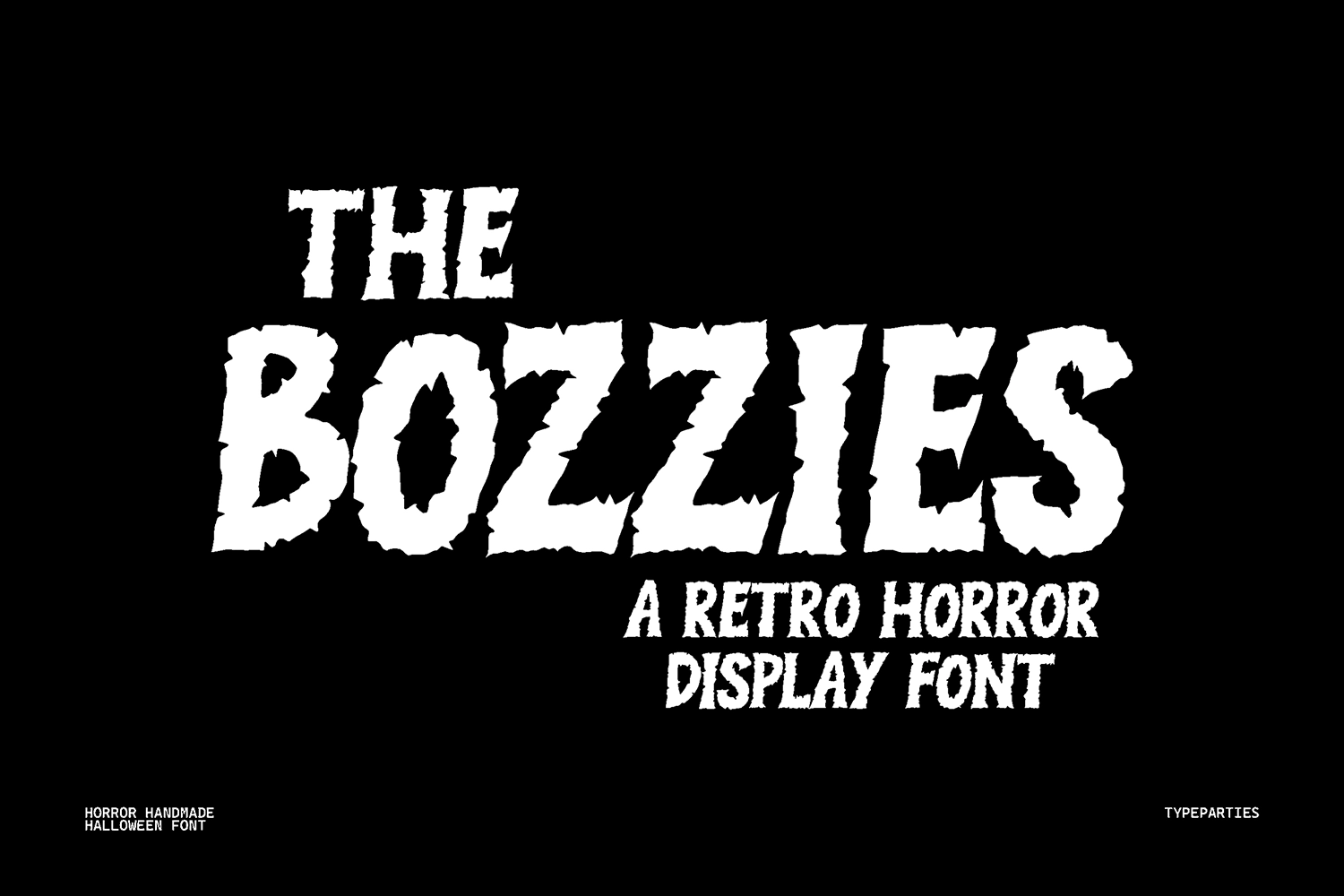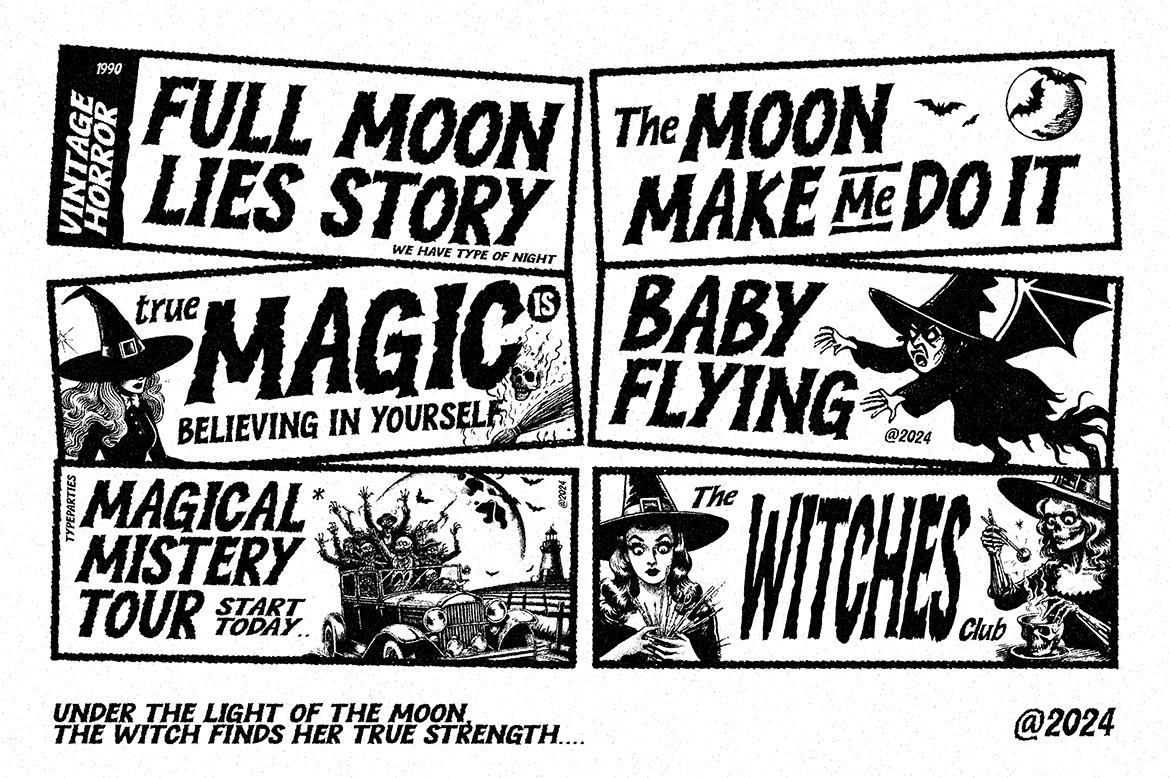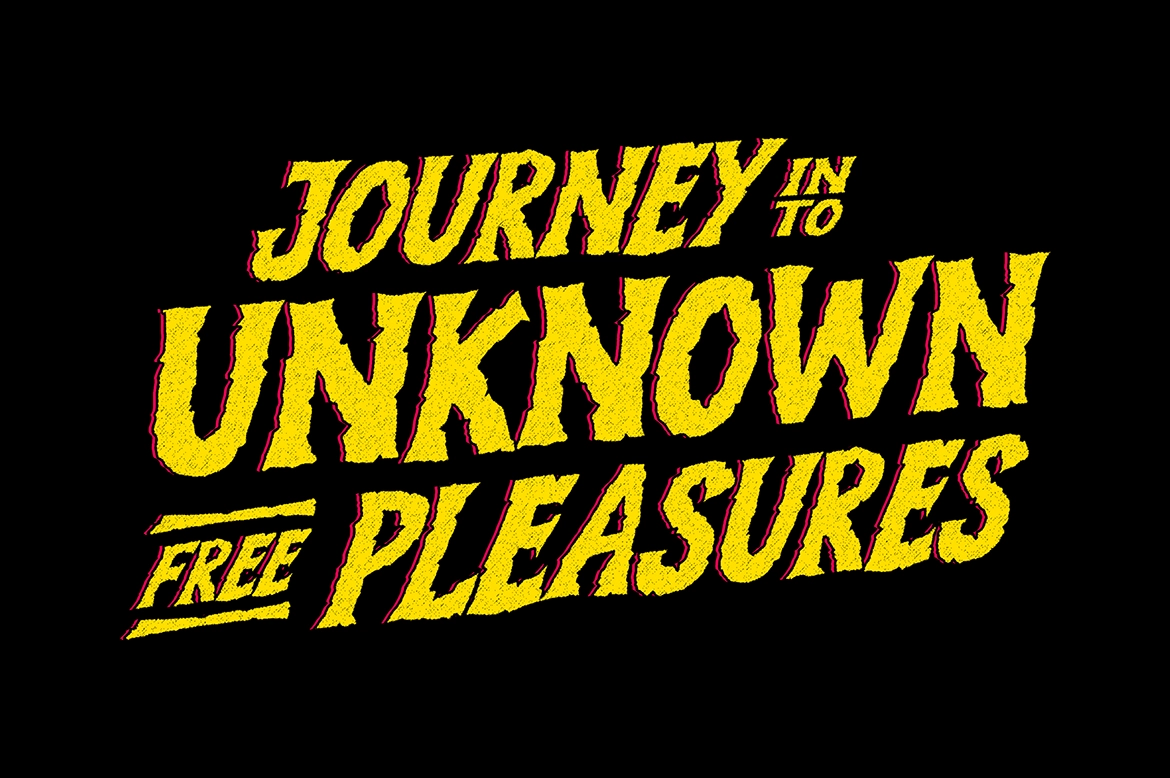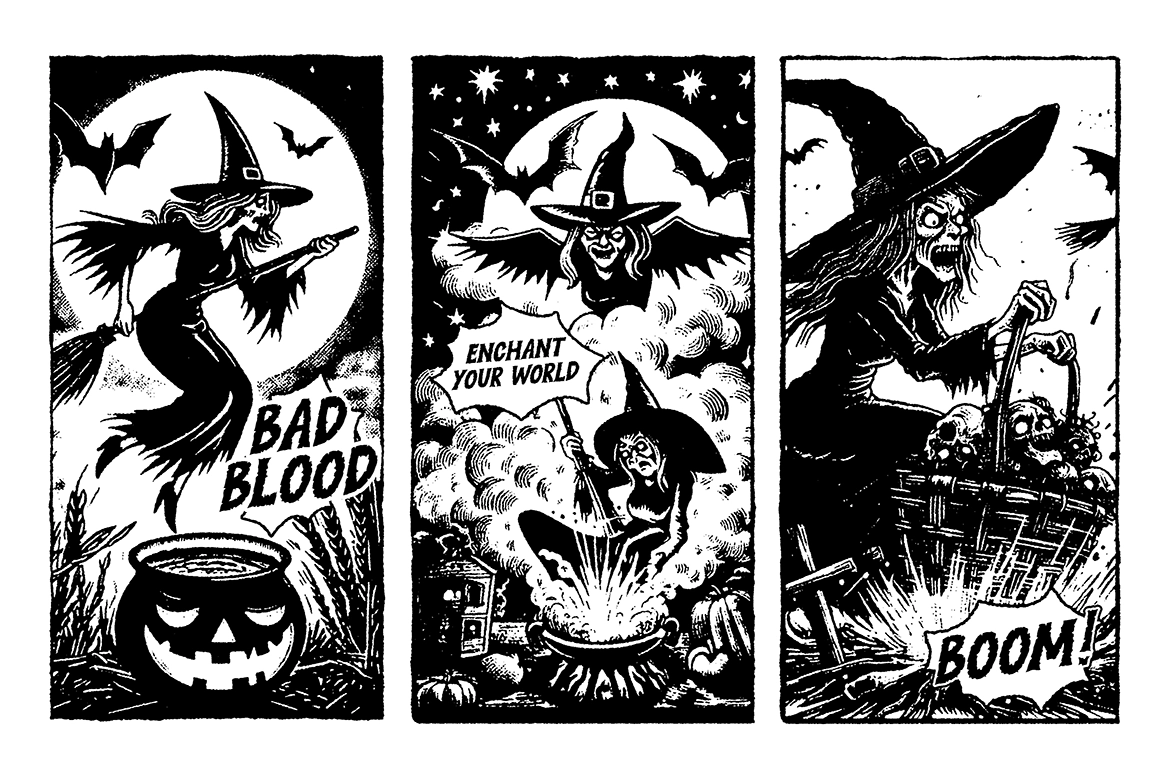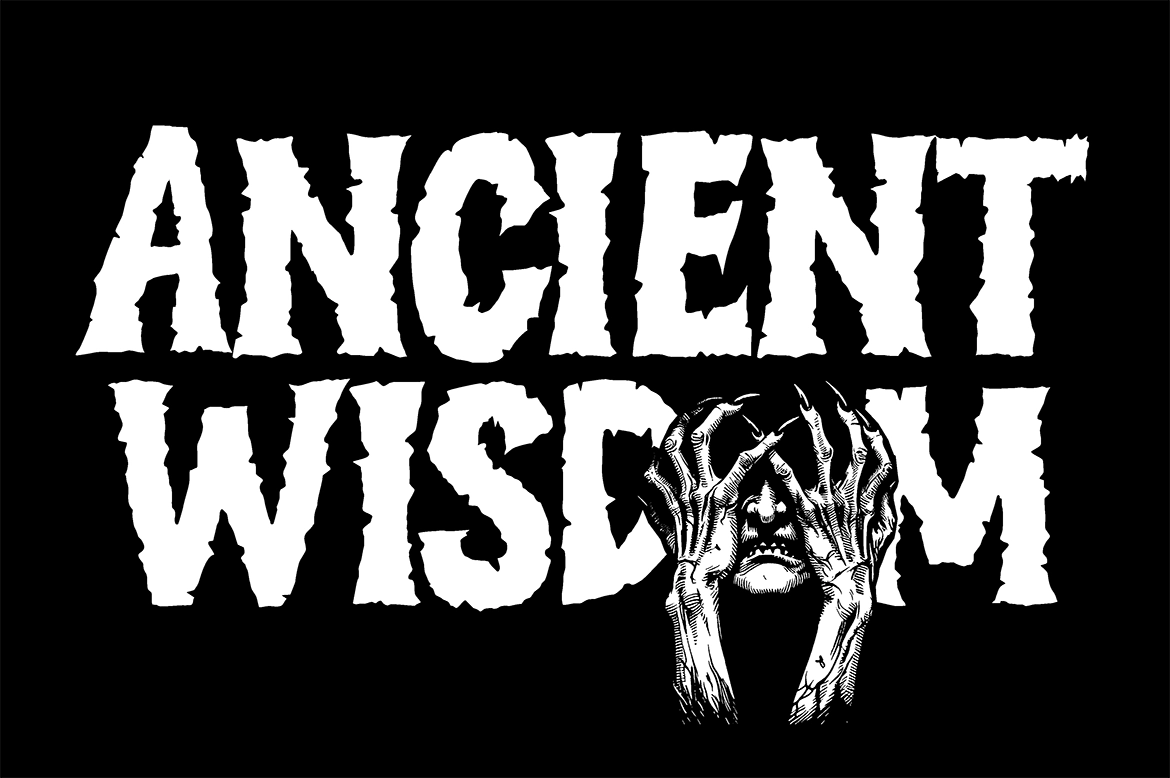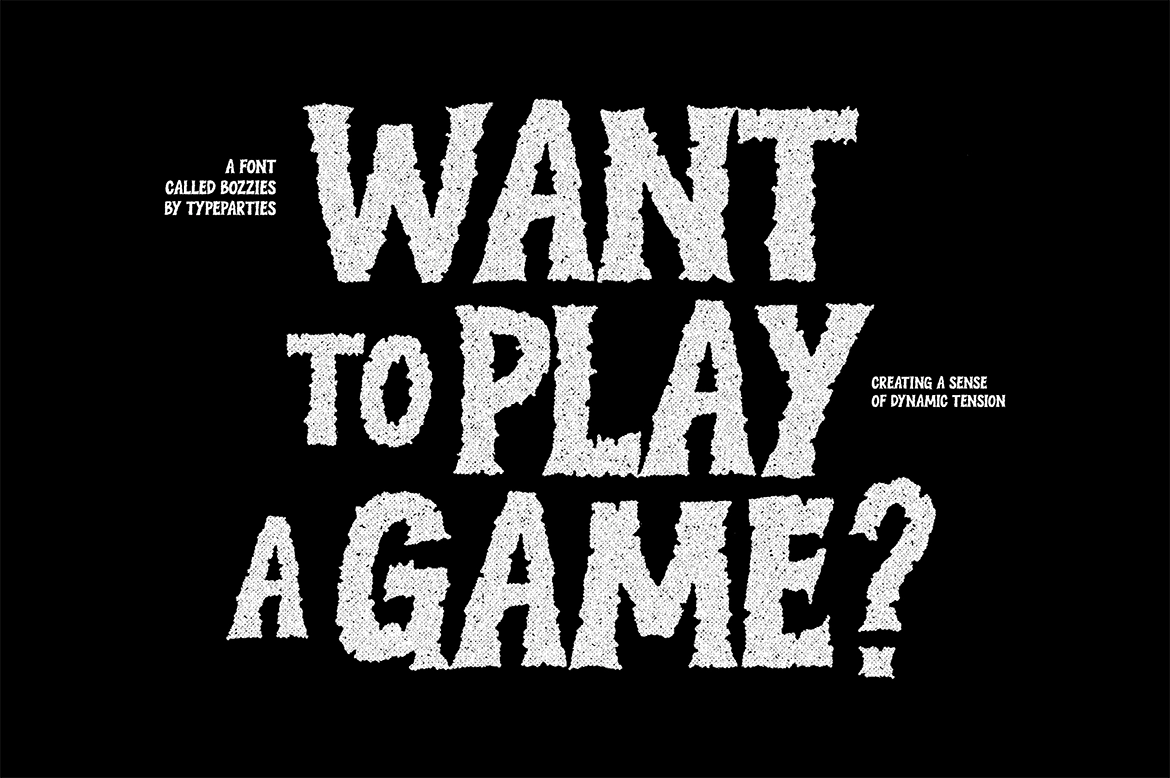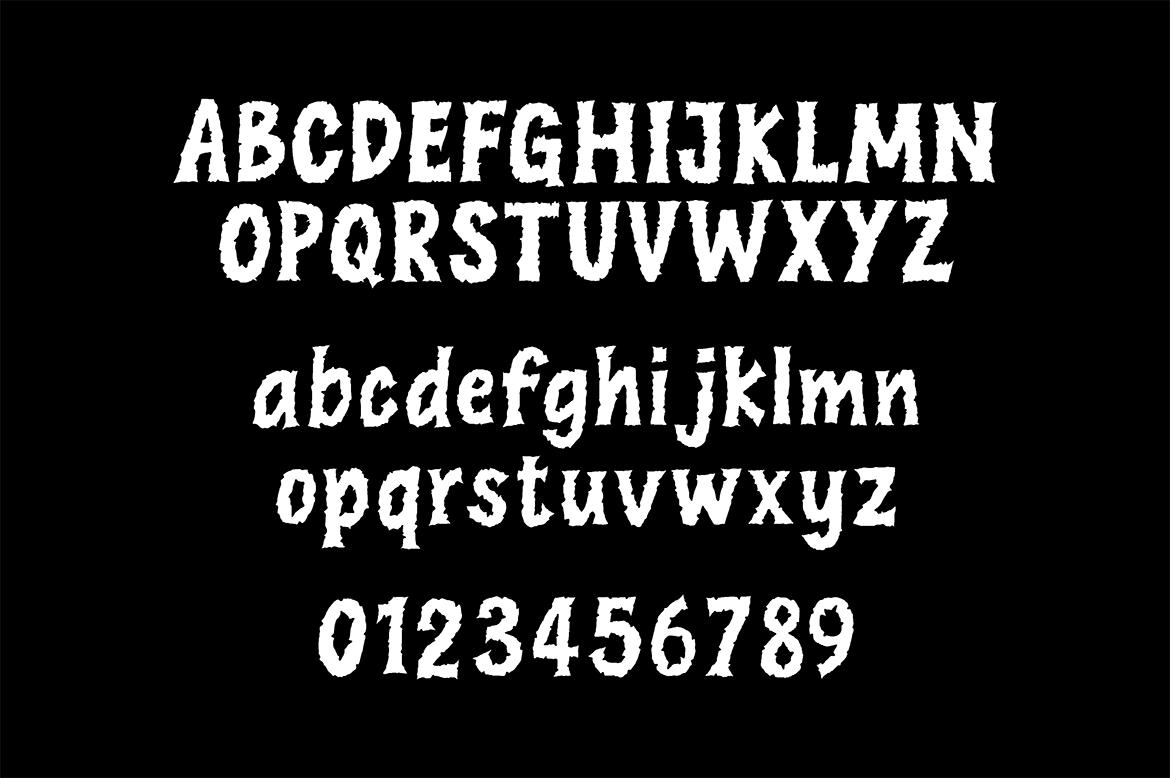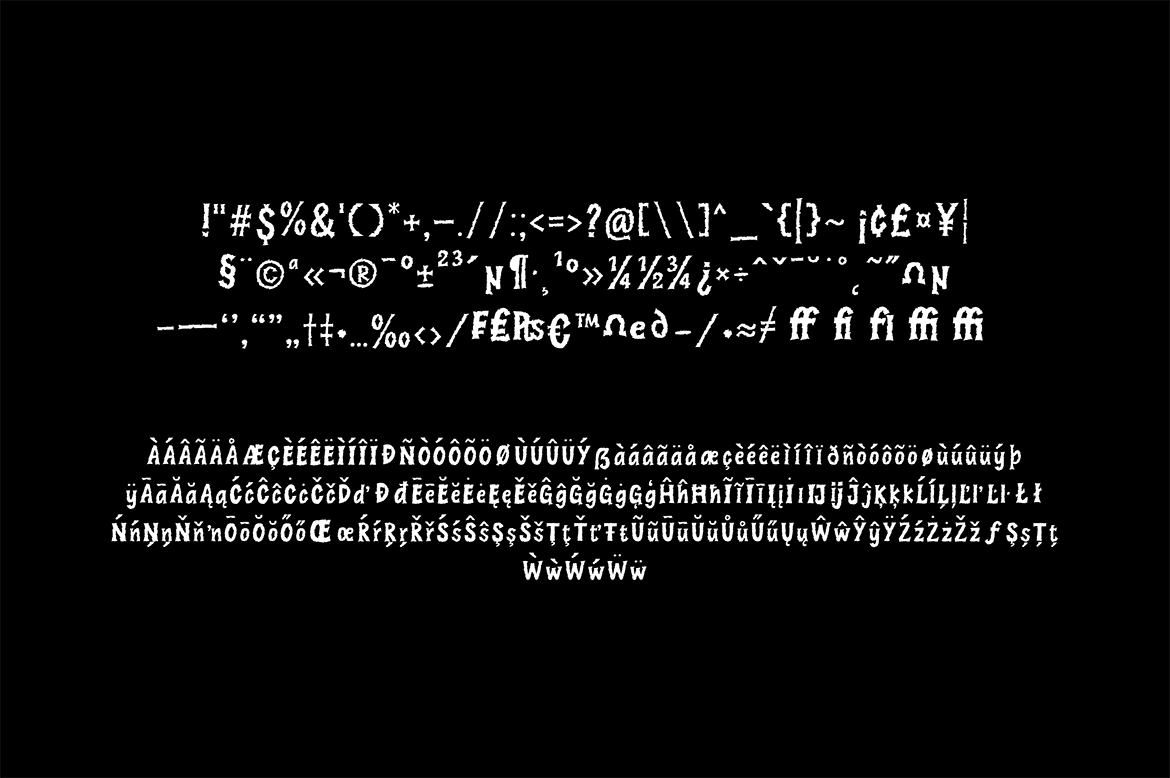
Bozzies – Horror Halloween Font
Bozzies – Horror Halloween Font is a bold and dramatic display typeface designed to capture the essence of vintage horror. With its cracked, fragmented letterforms, Bozzies delivers a raw and unsettling aesthetic that instantly evokes classic Halloween and retro terror themes.
Each character appears broken and distressed, as if shattered over time, creating dynamic tension and movement across your text. The rough edges and irregular shapes enhance its eerie personality, making it perfect for horror posters, Halloween party invitations, spooky branding, haunted house promotions, game titles, merchandise, and retro thriller designs.
Bozzies brings a gritty, cinematic horror vibe to any project that demands a bold and haunting typographic presence.
- Numerics & Punctuation
- Multilingual